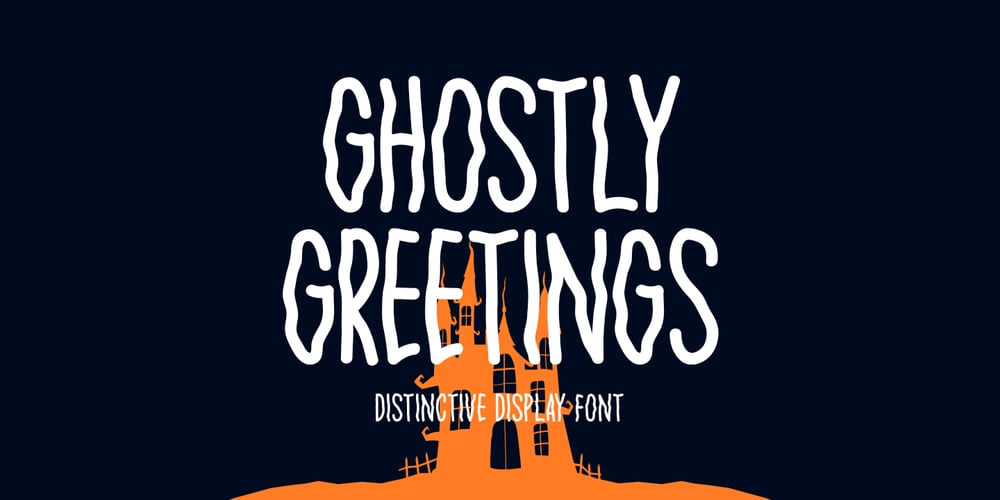
Ghostly Greetings Font Family was designed by Md Shohail Bhuian and published by Seemly Fonts. Ghostly Greetings contains 1 styles and family package options. Ghostly Greetings stands out as a truly unique display font that captures the spirit of Halloween. Its whimsical design is ideal for a wide array of applications, including stationery, logos, t-shirts, and print materials. Whether you’re designing website headers, photo frames, or eye-catching flyers, this font adds a touch of spooky charm. Perfect for music covers, posters, and image sliders, Ghostly Greetings is versatile enough to enhance any creative project.